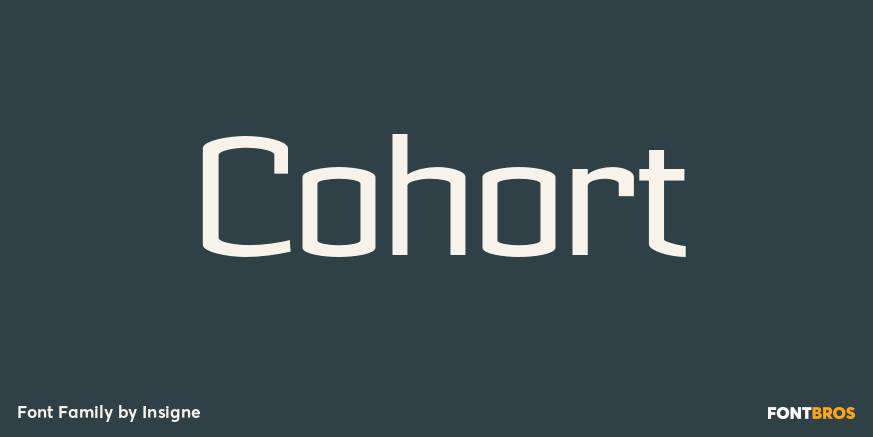
Cohort
About Cohort
Cohort is a strong and crisp geometric sans serif. Cohort uses a rounded rectangle as its central motif. Although the geometric design is minimalistic, Cohort has a variety of unique letterforms that keep the design from being too predictable and maintains…